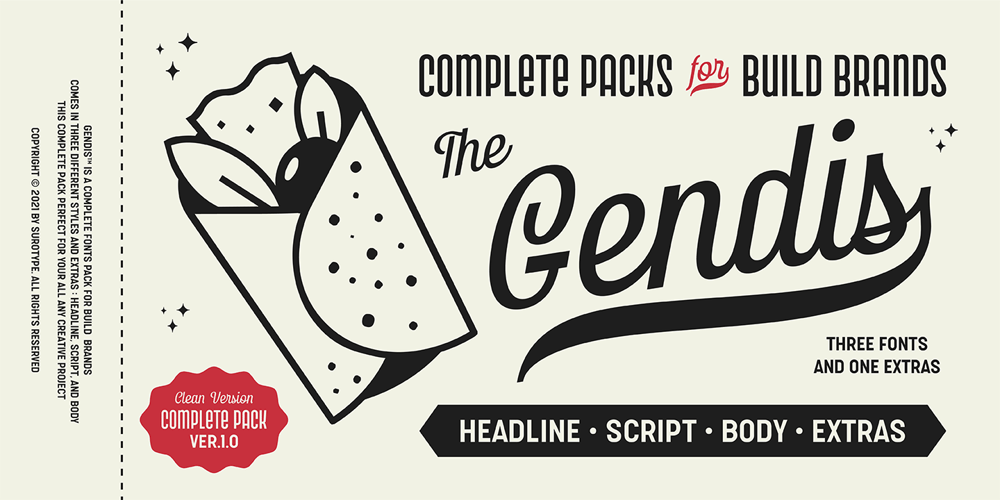
Gendis Font Family was designed by Adil Budianto and published by Surotype. Gendis contains 4 styles and family package options. Gendis is a complete fonts pack for build brands, comes in three different styles and extras. This complete package is perfectly for all your creative work such as branding projects, packaging design, ads and more.To enable the opentype stylistic alternates, you need a program that supports opentype features.